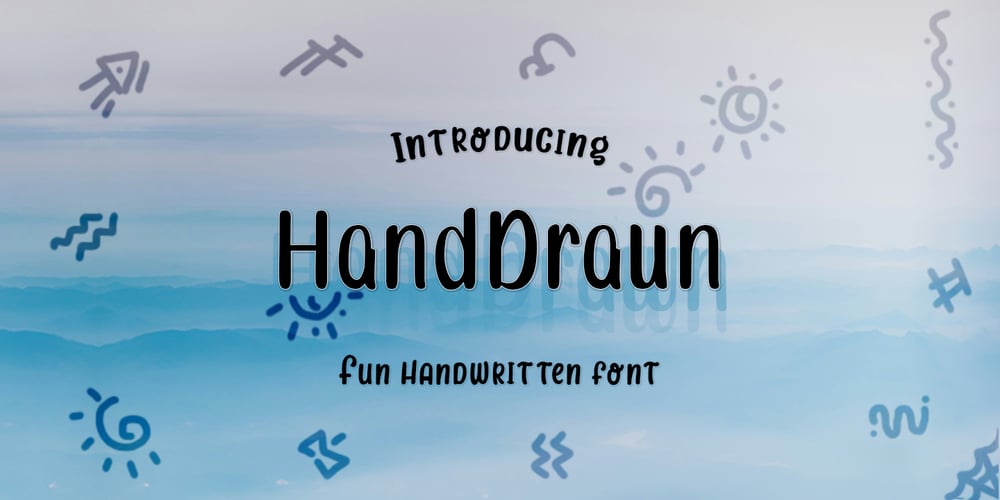
Hand draun Font Family was designed by ALDI RAMDAN and published by TypeCase.std. Hand draun contains 1 styles and family package options. Handdraun is a natural and friendly handwritten font. Its natural and unique style makes it perfect for a wide range of designs.Handdraun is perfect for your next creative project, such as logos, printed quotes, invitations, cards, product packaging, headers, Logotypes, Letterheads, Posters, photography watermarks, advertisements, product designs, stationery, wedding designs, labels, product packaging, special events, or anything that needs a handwritten touch.This typeface has charming, authentic, and relaxed characteristics that will add a more natural look to your text.